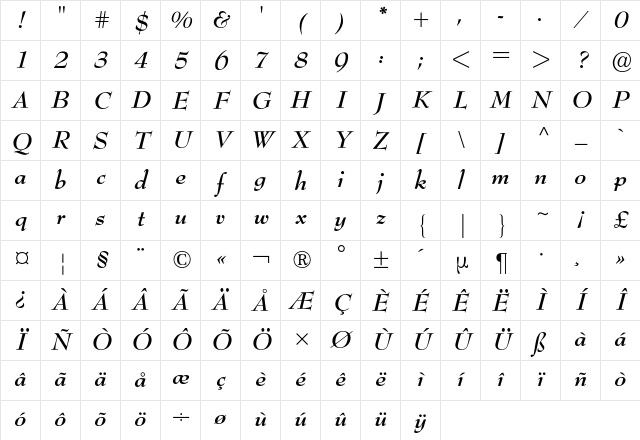
Complete Bernhard Modern BQ Regular glyph index. Displaying only characters natively supported by Bernhard Modern BQ Regular font.
Bernhard Modern BQ is a composed and adaptable typeface that performs quietly and consistently across a wide range of design contexts.